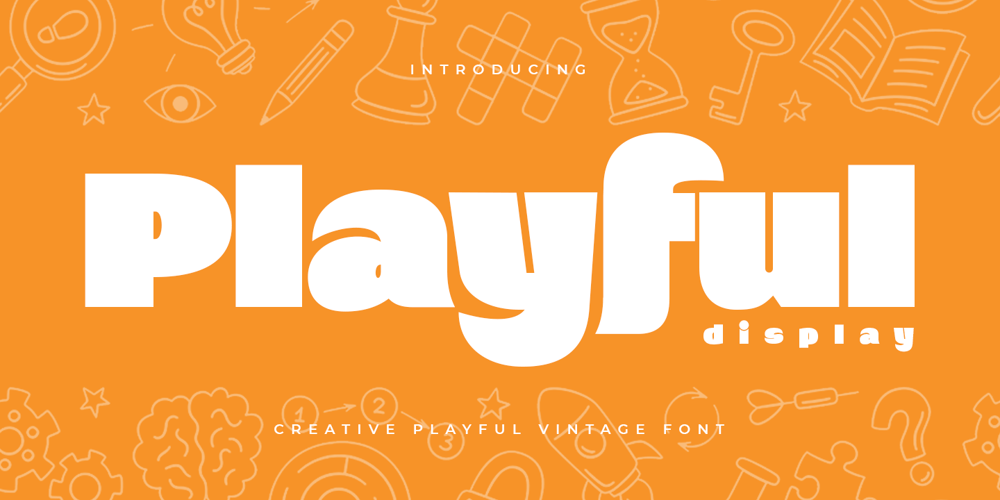
Playful
Playful font
Playful Font Family was designed by Zamroni Hamzah and published by Sensatype Studio. Playful contains 1 styles and family package options. Playful, Creative Playful Vintage Font is a fun and playful cute typeface. It is perfect for logotype, flyer, greeting cards, packaging, book cover, printed quotes, headings, etc.What will you get: Playful Font Ready with Playful and Fun Font All Characters (from A to Z) Numbers and Punctuation Works on PC & Mac Simple installations PUA Encoded Thanks and have a wonderful day. 🙂